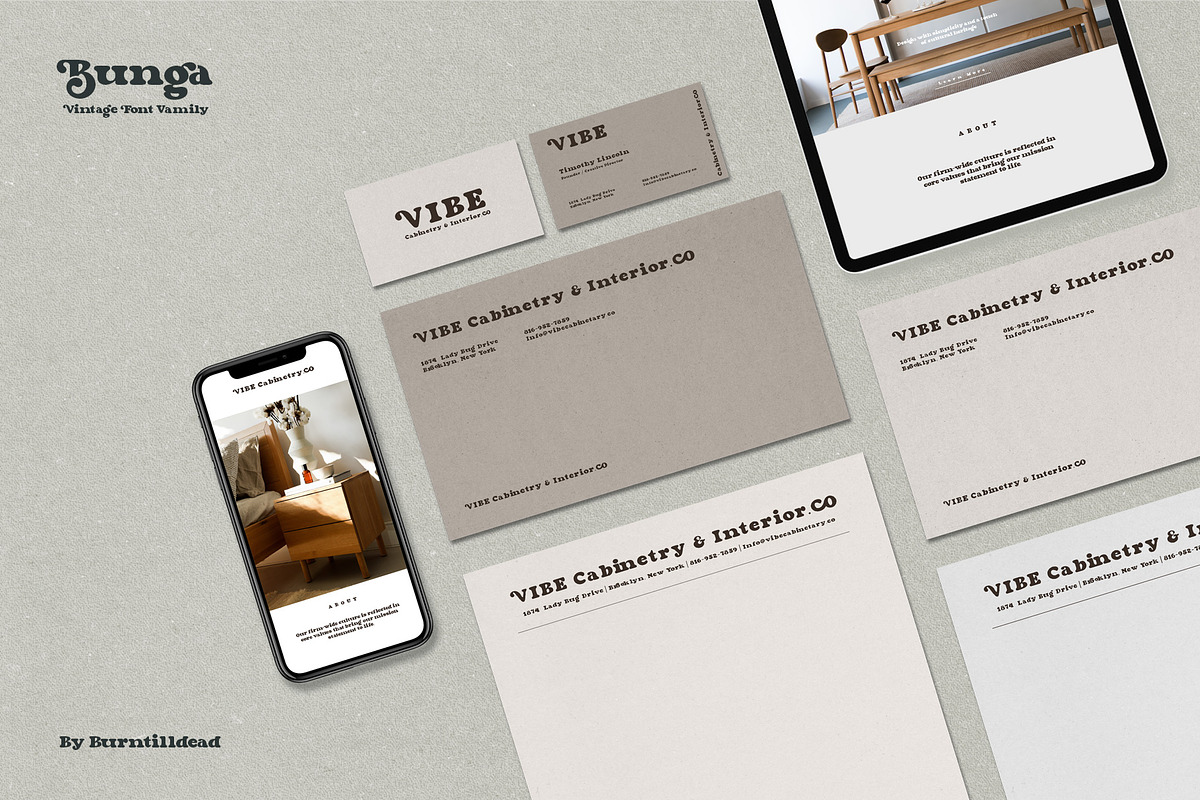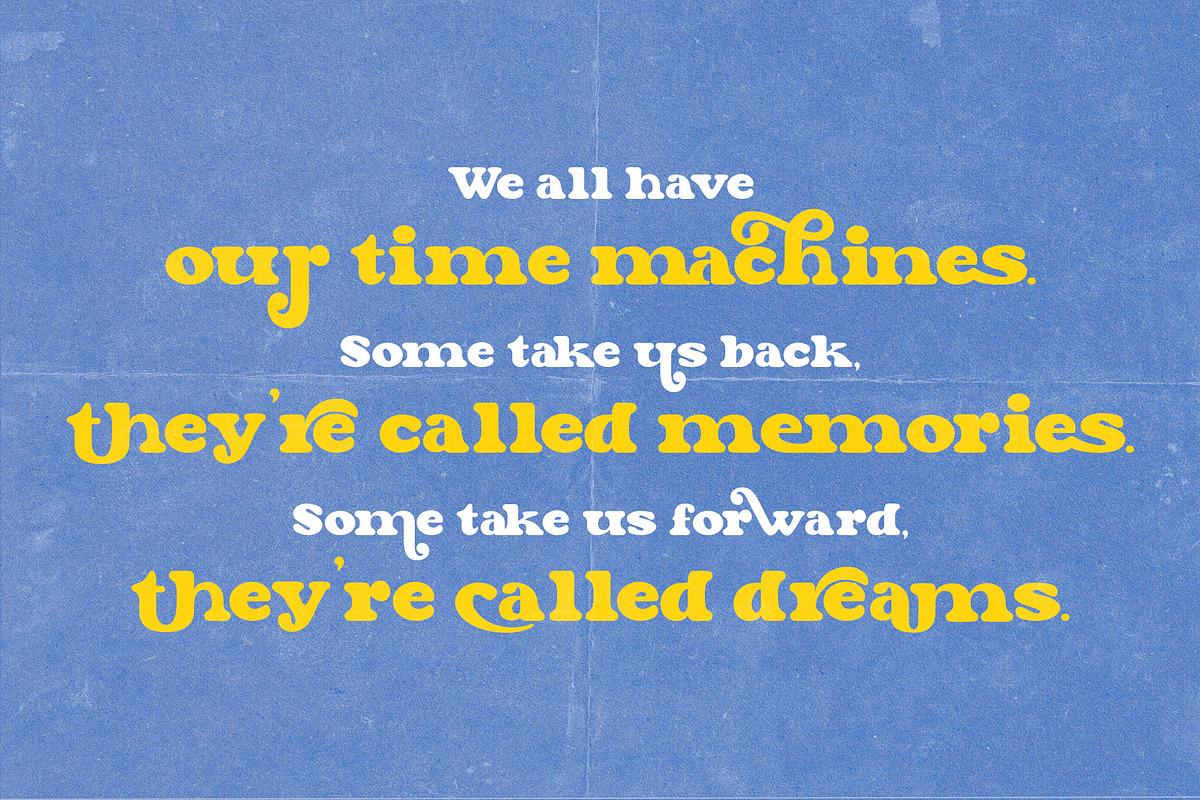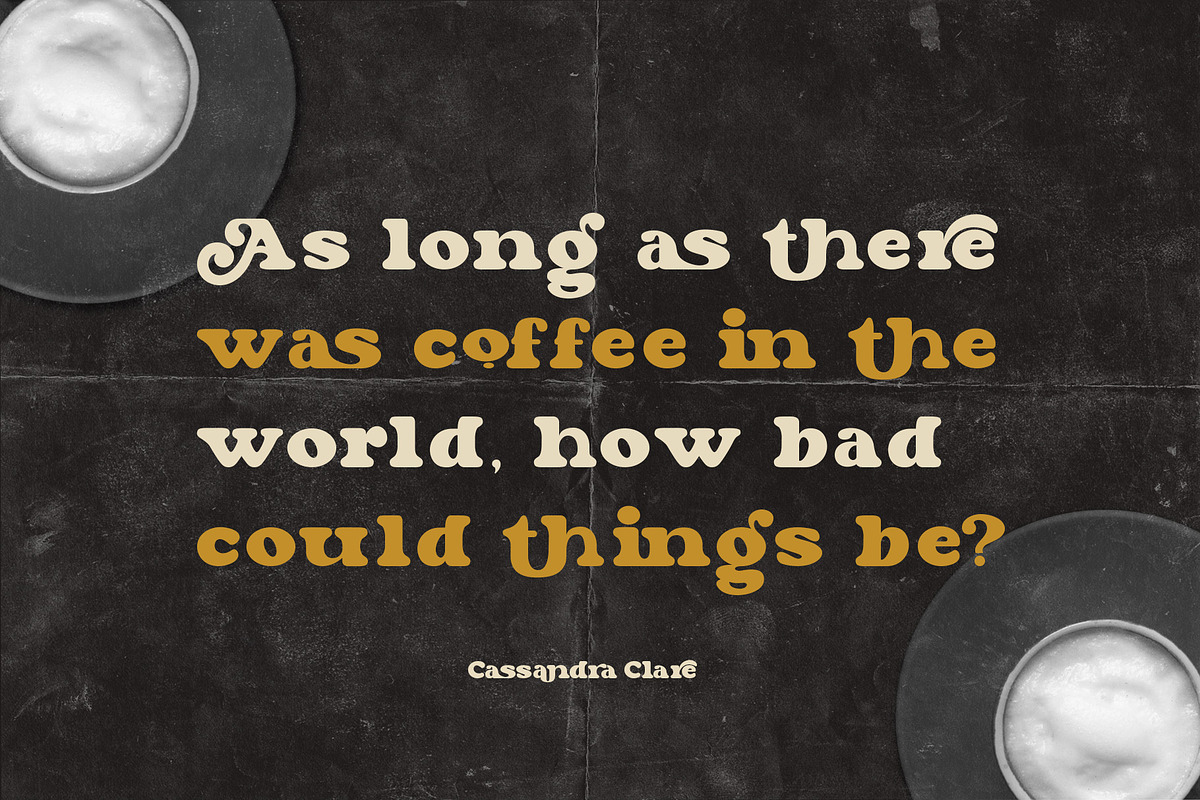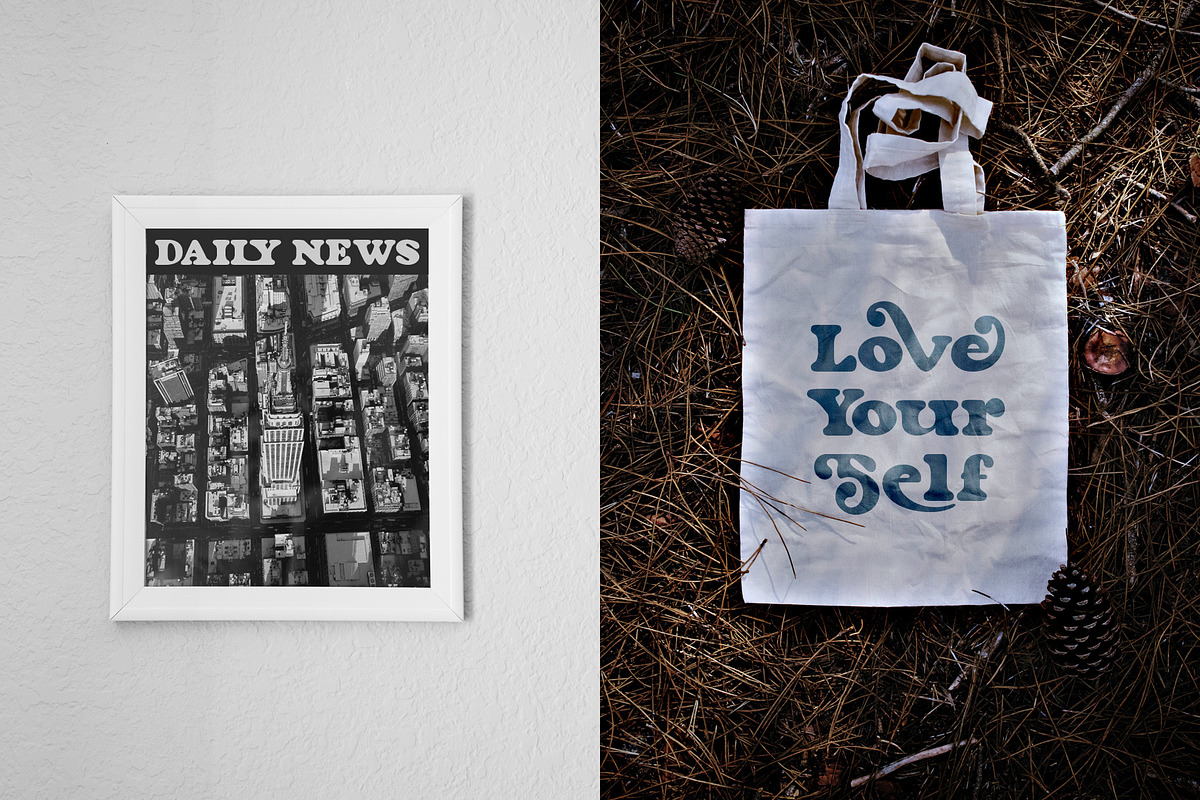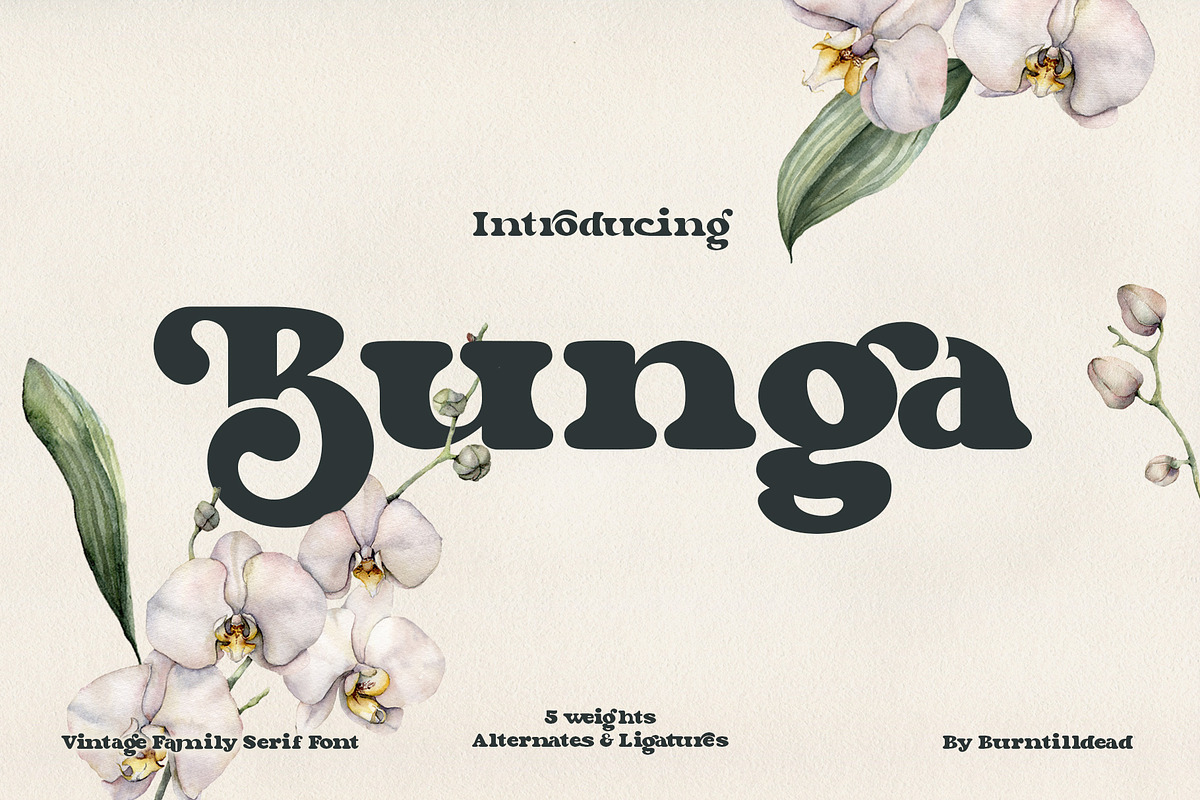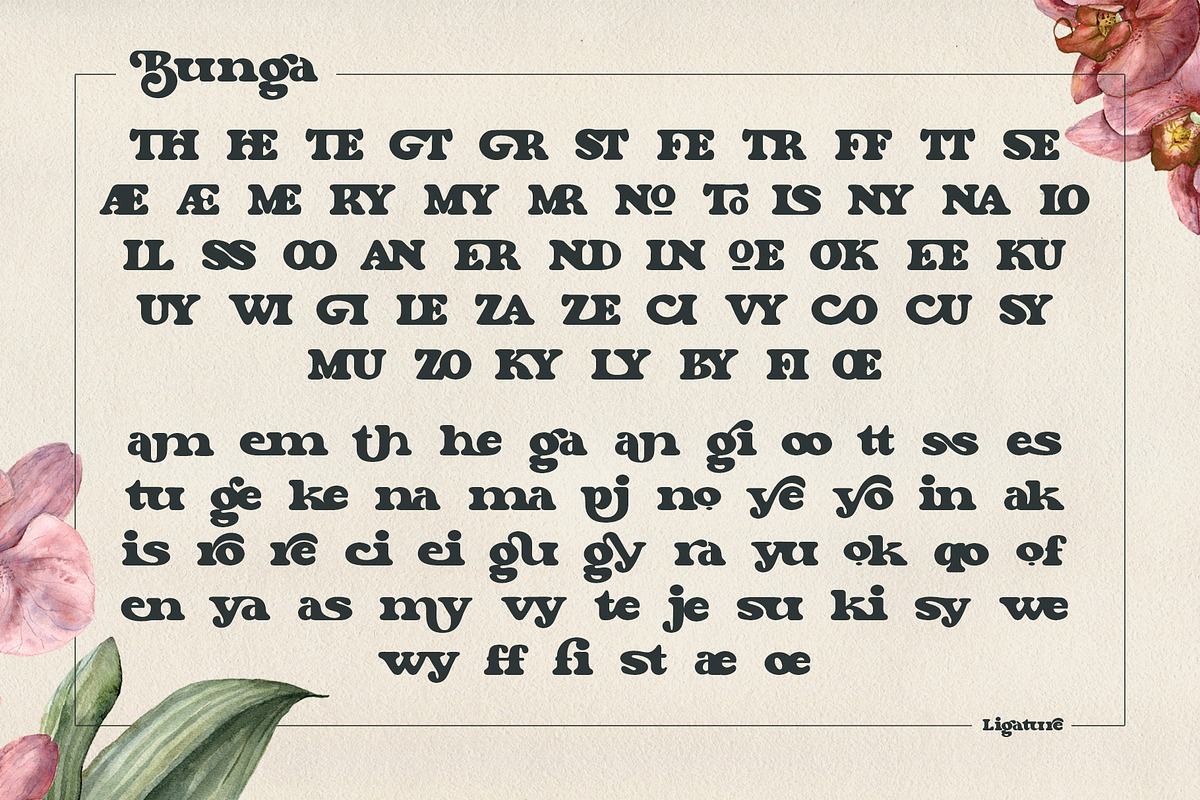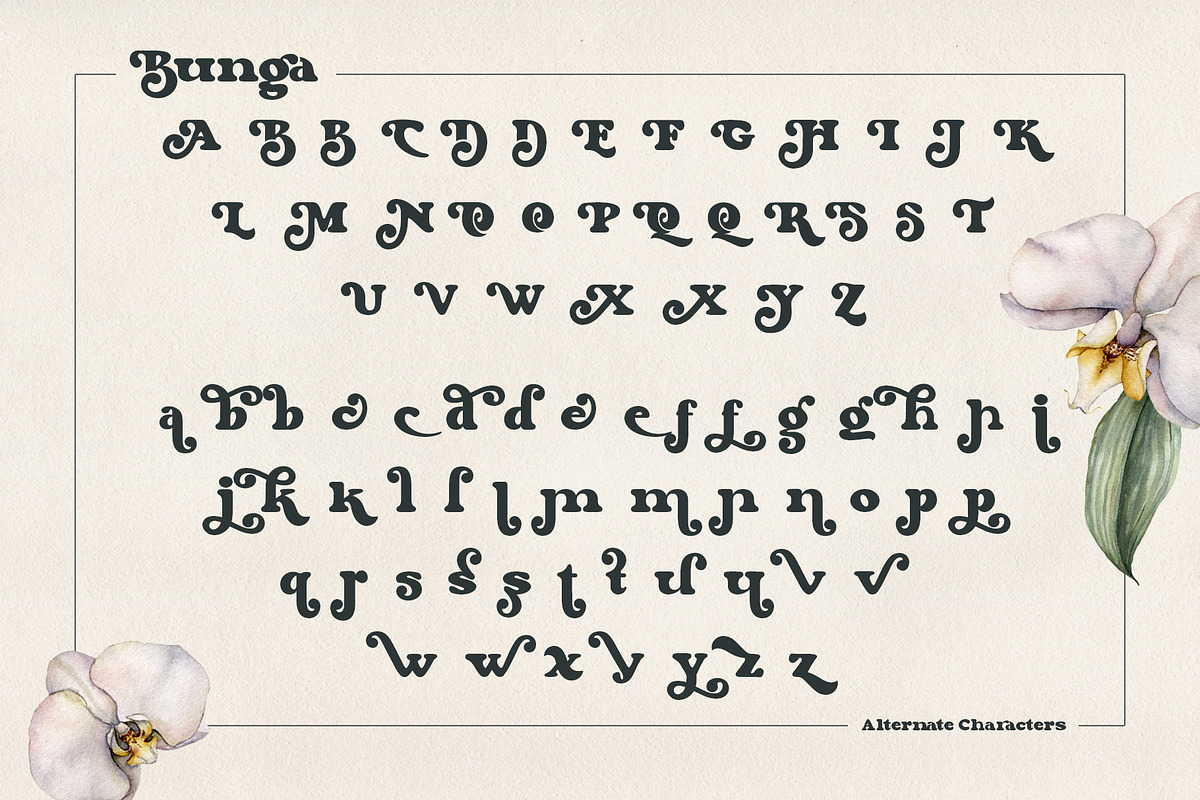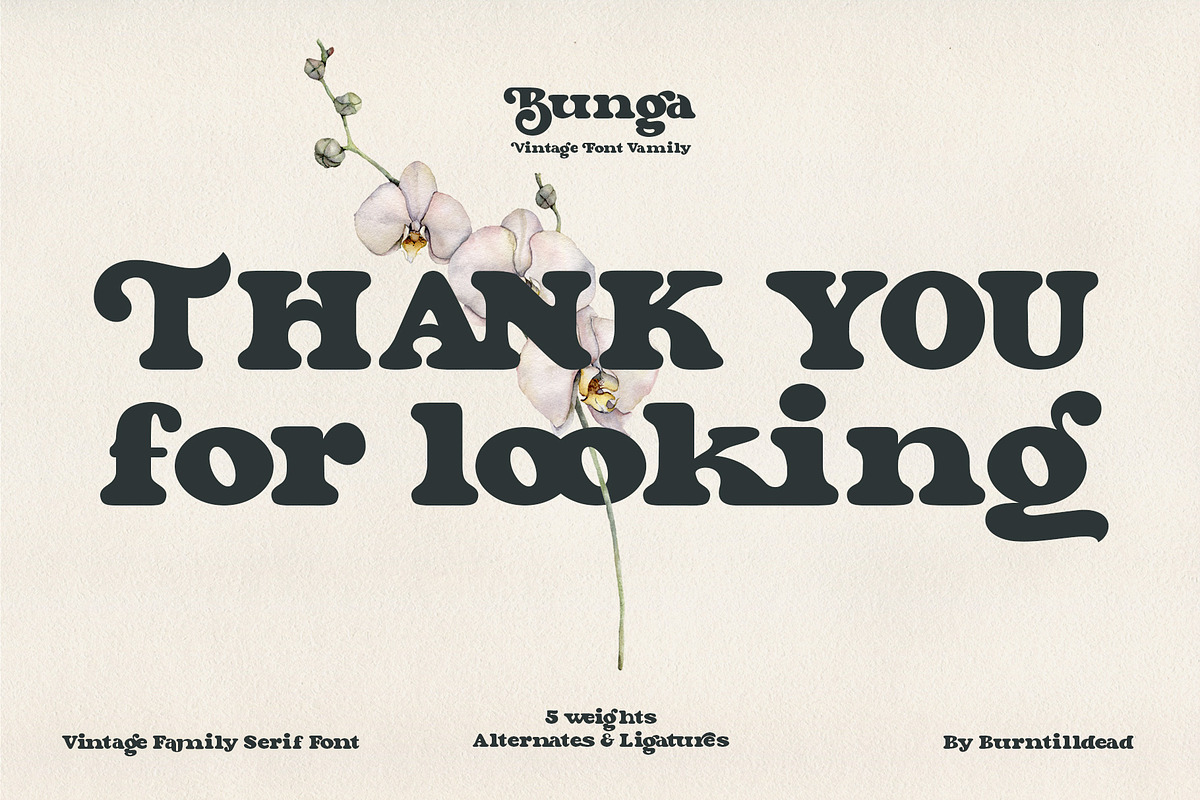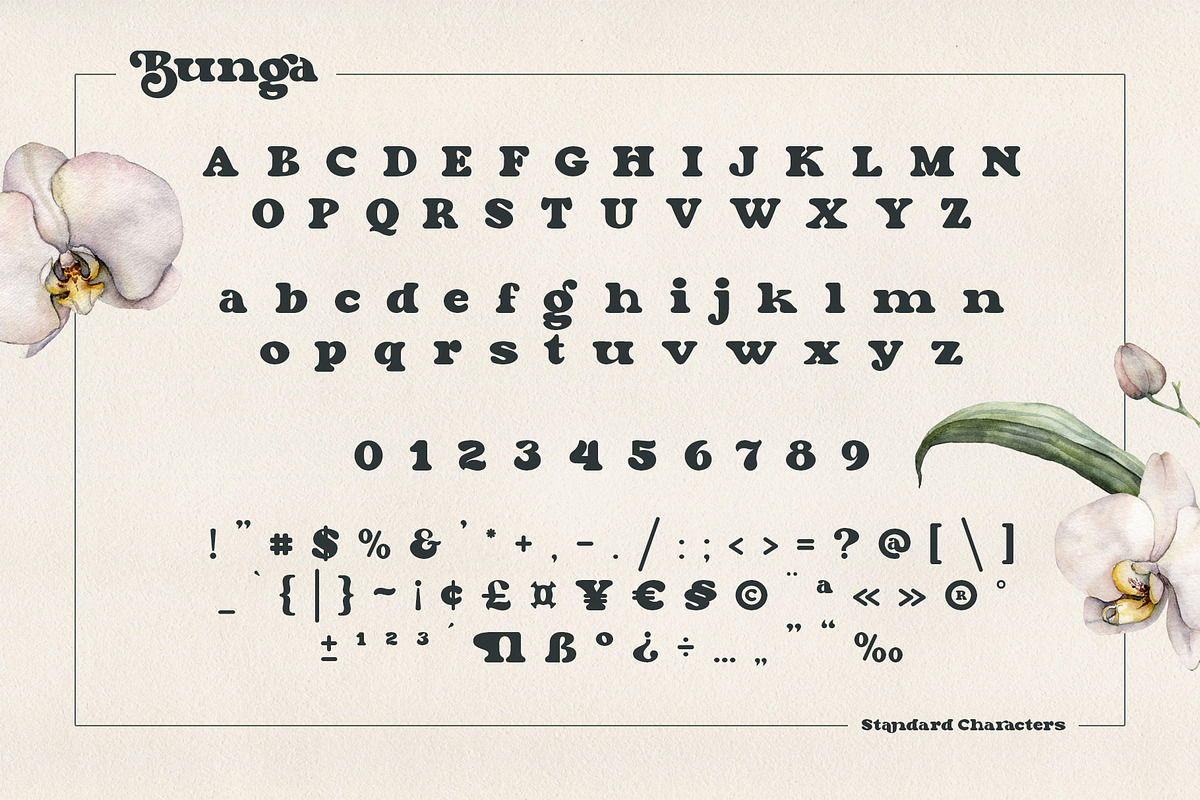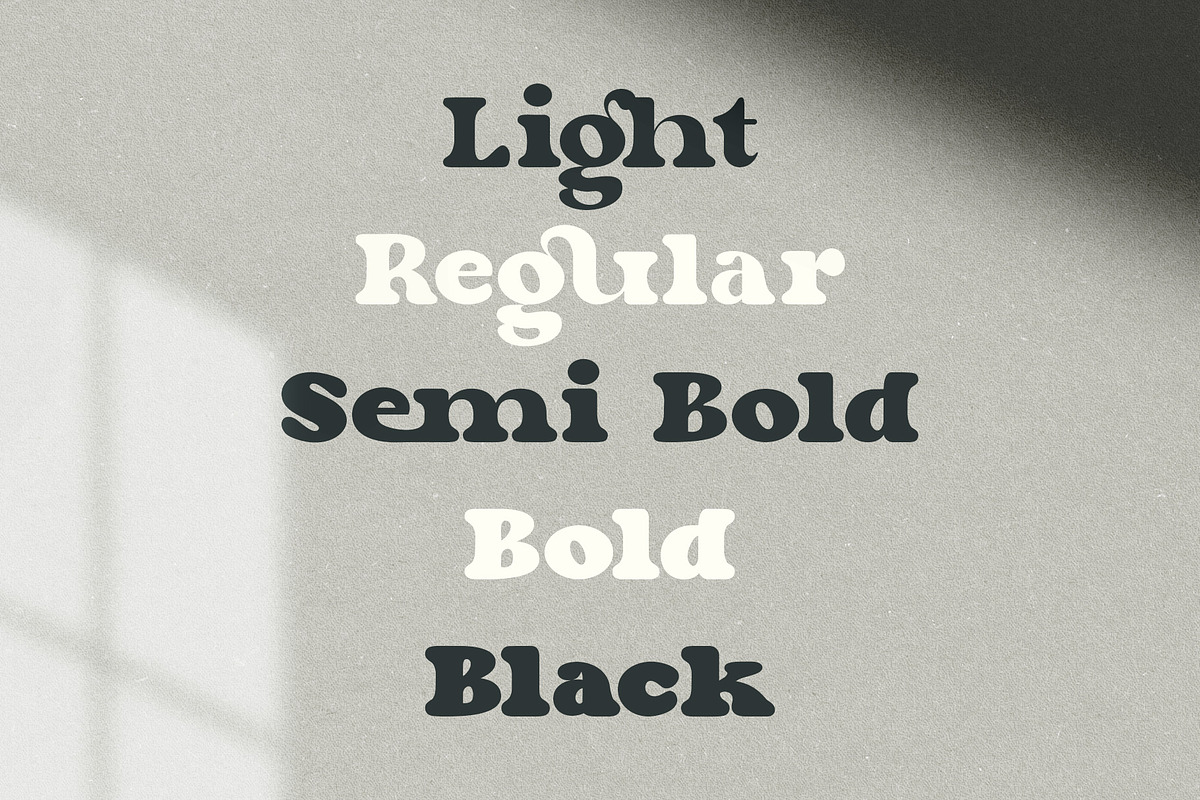
Bunga
Say Hi to "Bunga", inspired by the 70 - 80's retro bold font that always used on that decade. We try to bring a beautifull time machine on the table, a great decade were you can saw many groovy and thick design. Fits perfectly into those nostalgic moodboards and vintage logos.
POWERED WITH 5 WEIGHTS - Bunga Light, Bunga Regular, Bunga Semi Bold, Bunga Bold & Bunga Black.
OPENTYPE FEATURES - First lowercase (after a capital) and last letter swap automatically. You just need turn on Contextual Alternates. Usually Adobe Photoshop and other programs activate it by default.